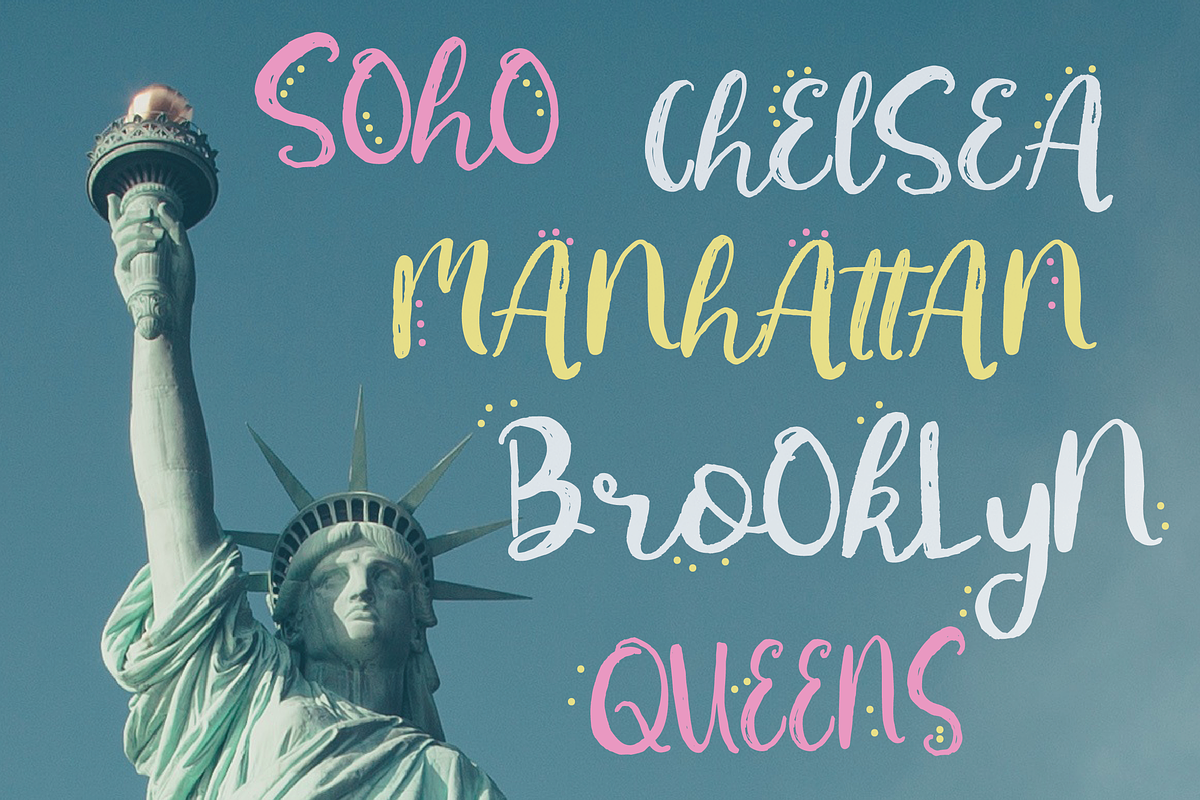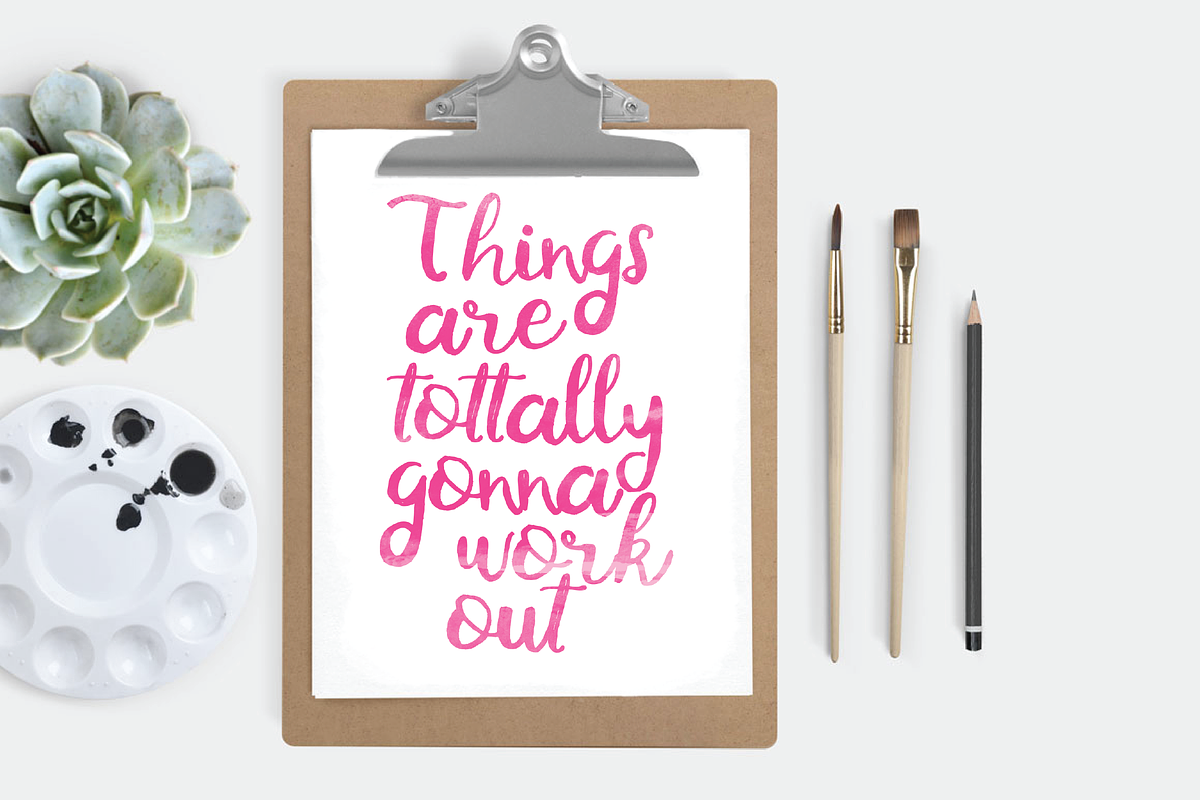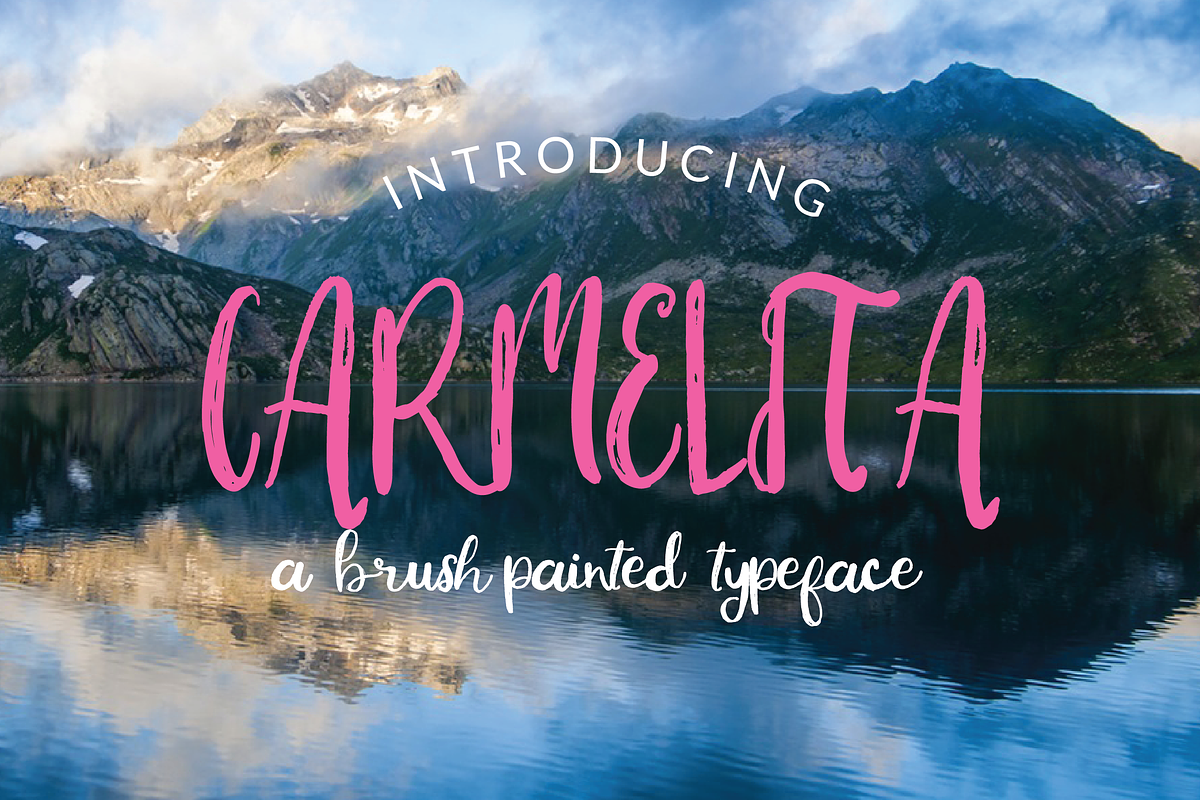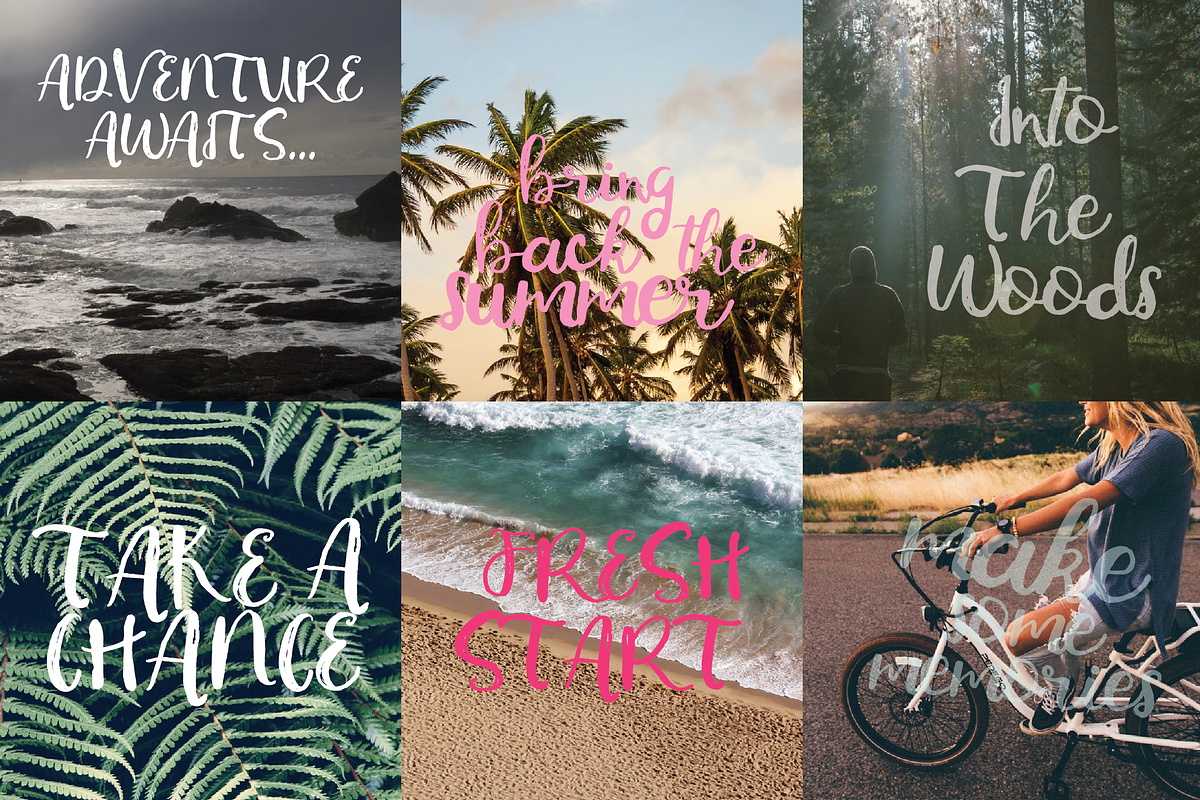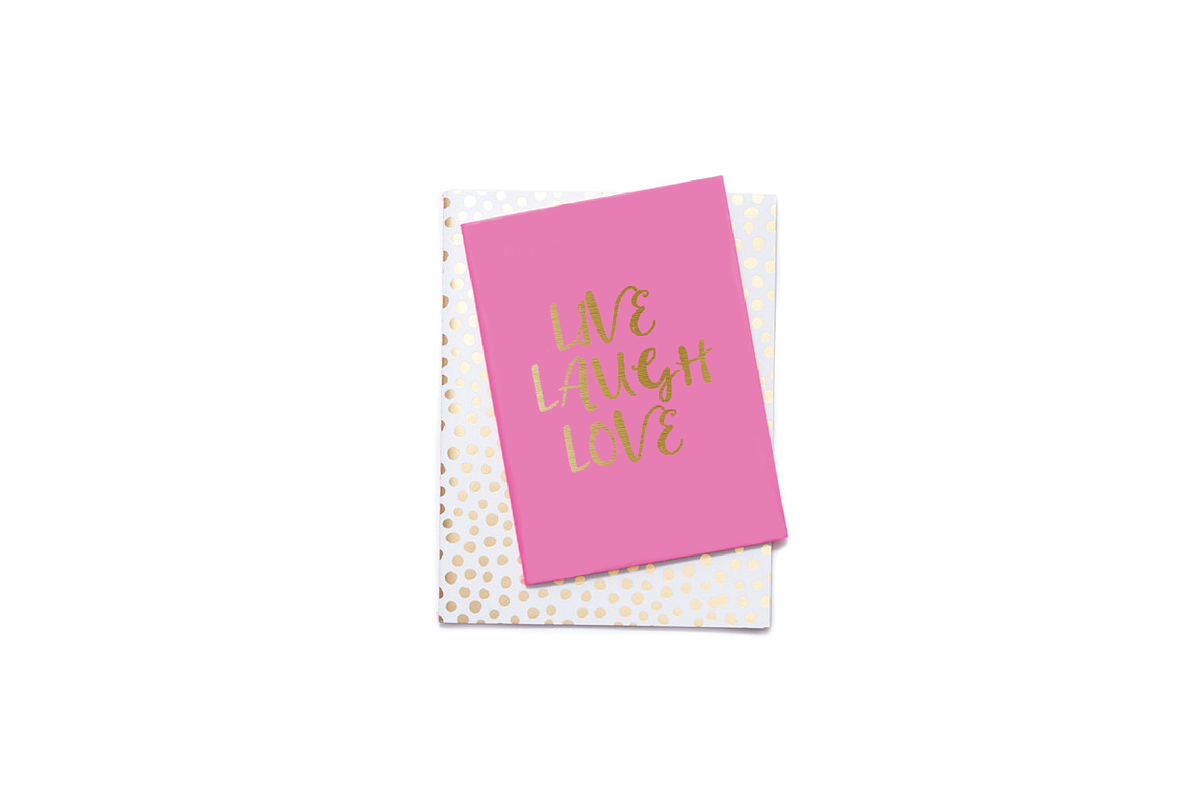
Carmelita Brush Font
Carmelita Brush Font by Lila Miller is a font selected for branding, posters, packaging, typography.
Why Carmelita Brush Font is worth a look
Carmelita Brush Font by Lila Miller fits naturally into Branding, posters, packaging, typography.